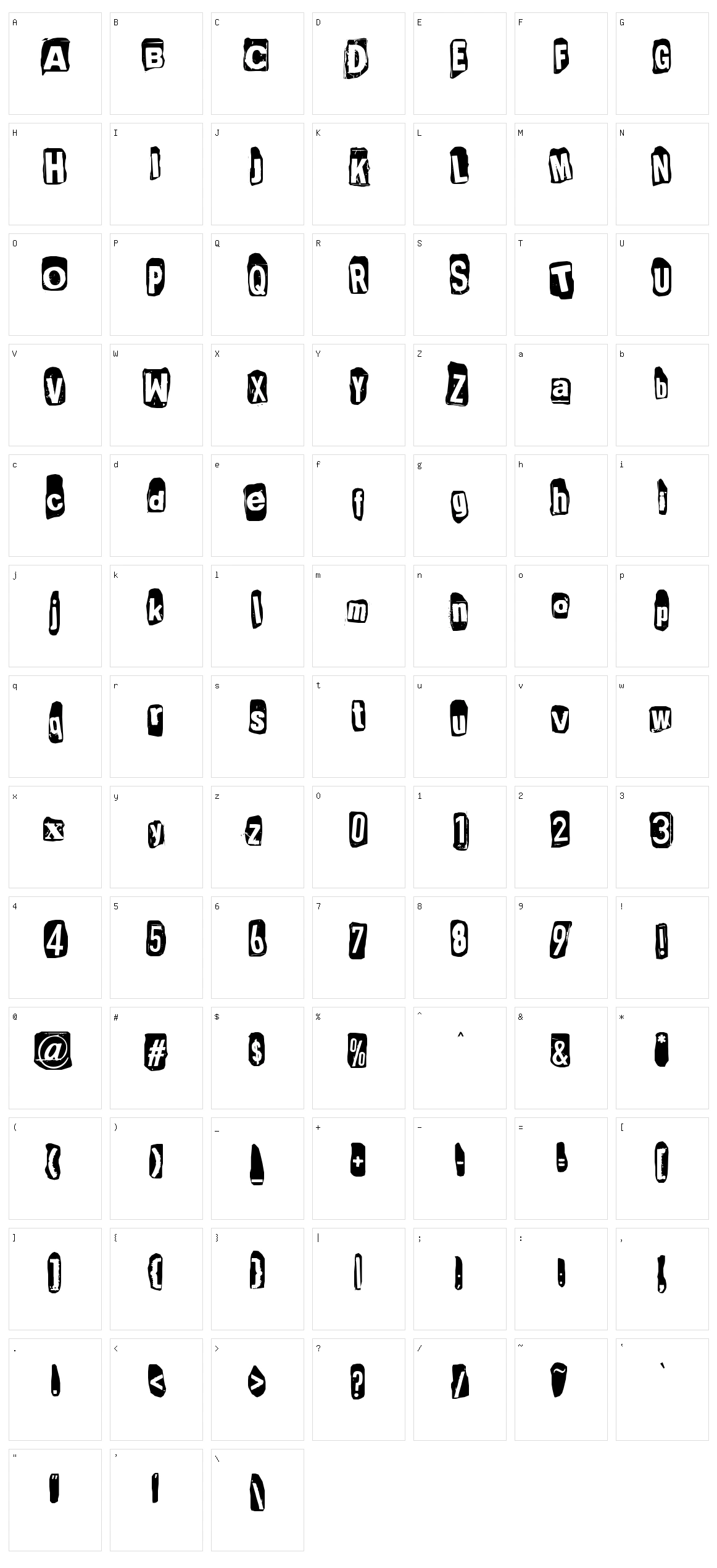
The free font Punk's not dead is carefully designed by p joks, showcasing a thoughtful balance of creativity and usability and falls under the Destroy font style. When you download the ZIP file, it contains only 62.87 KB of font files, making it lightweight and quick to download. Please review the license details below to understand permitted usage and distribution rights. If license information is not available, we recommend using this font for personal projects only or contacting the author directly for commercial usage permissions.